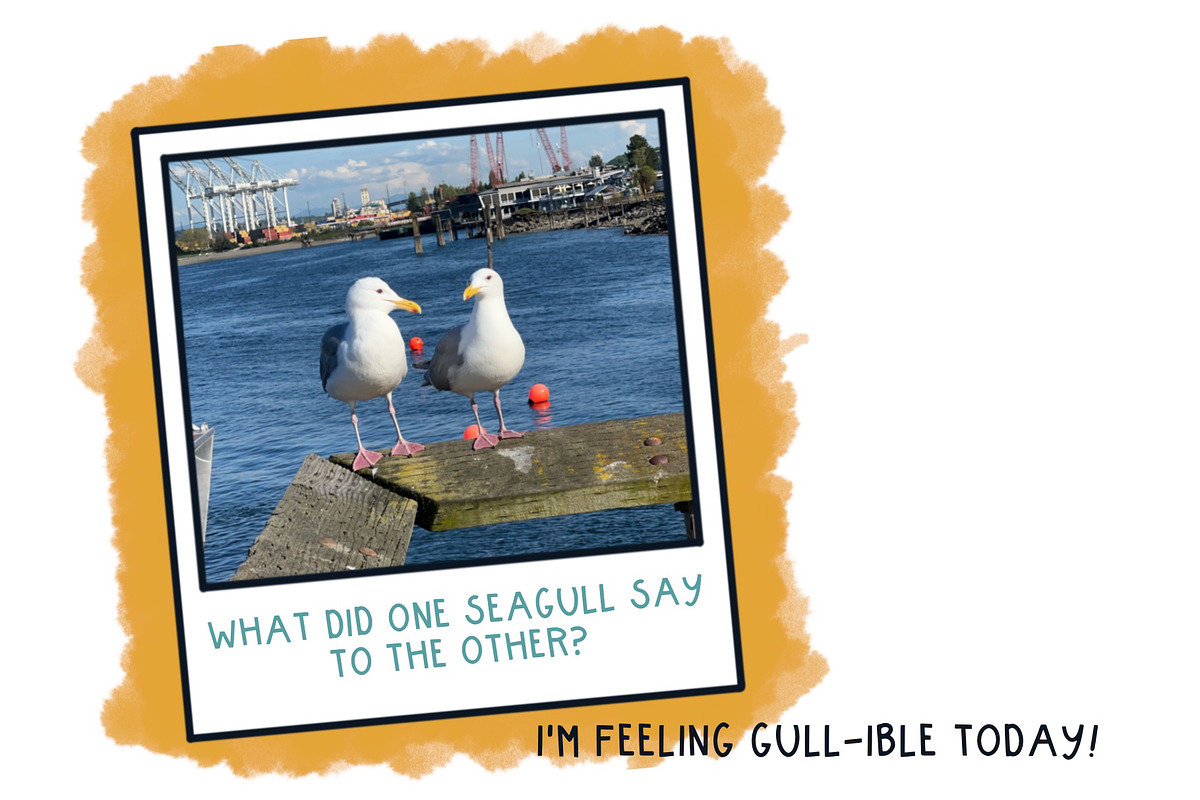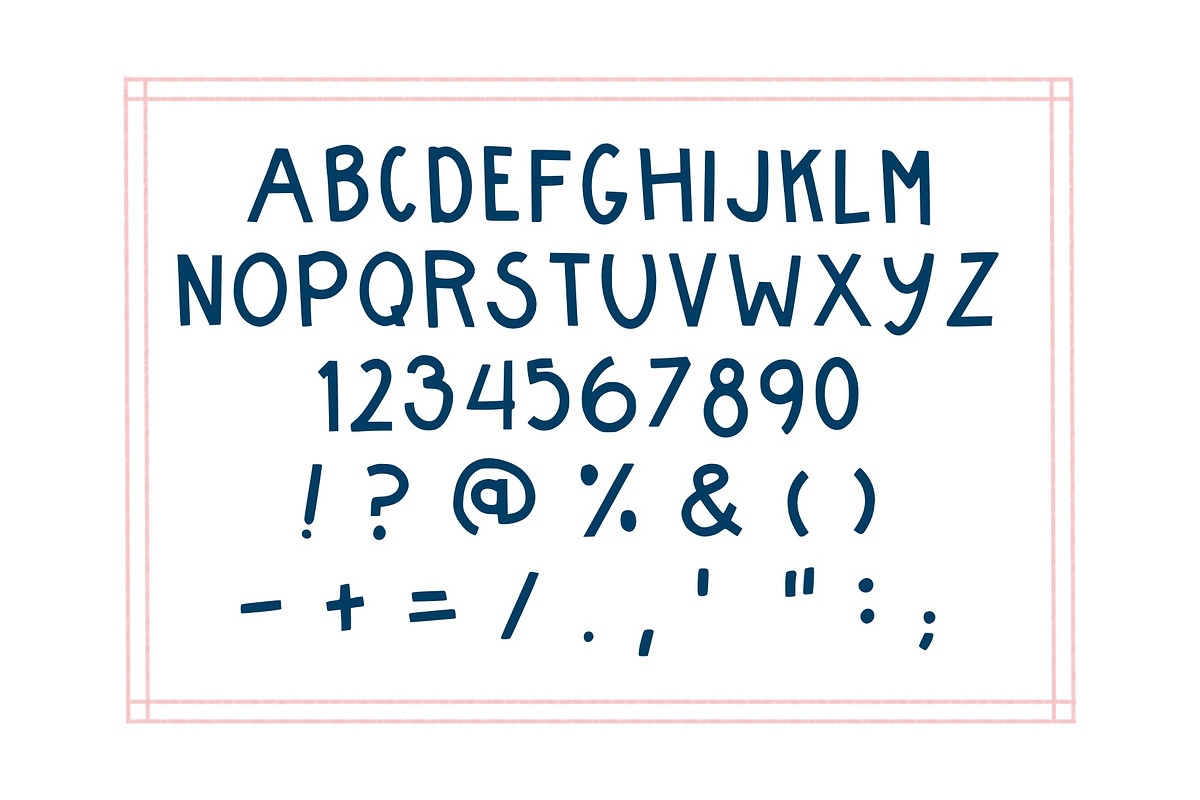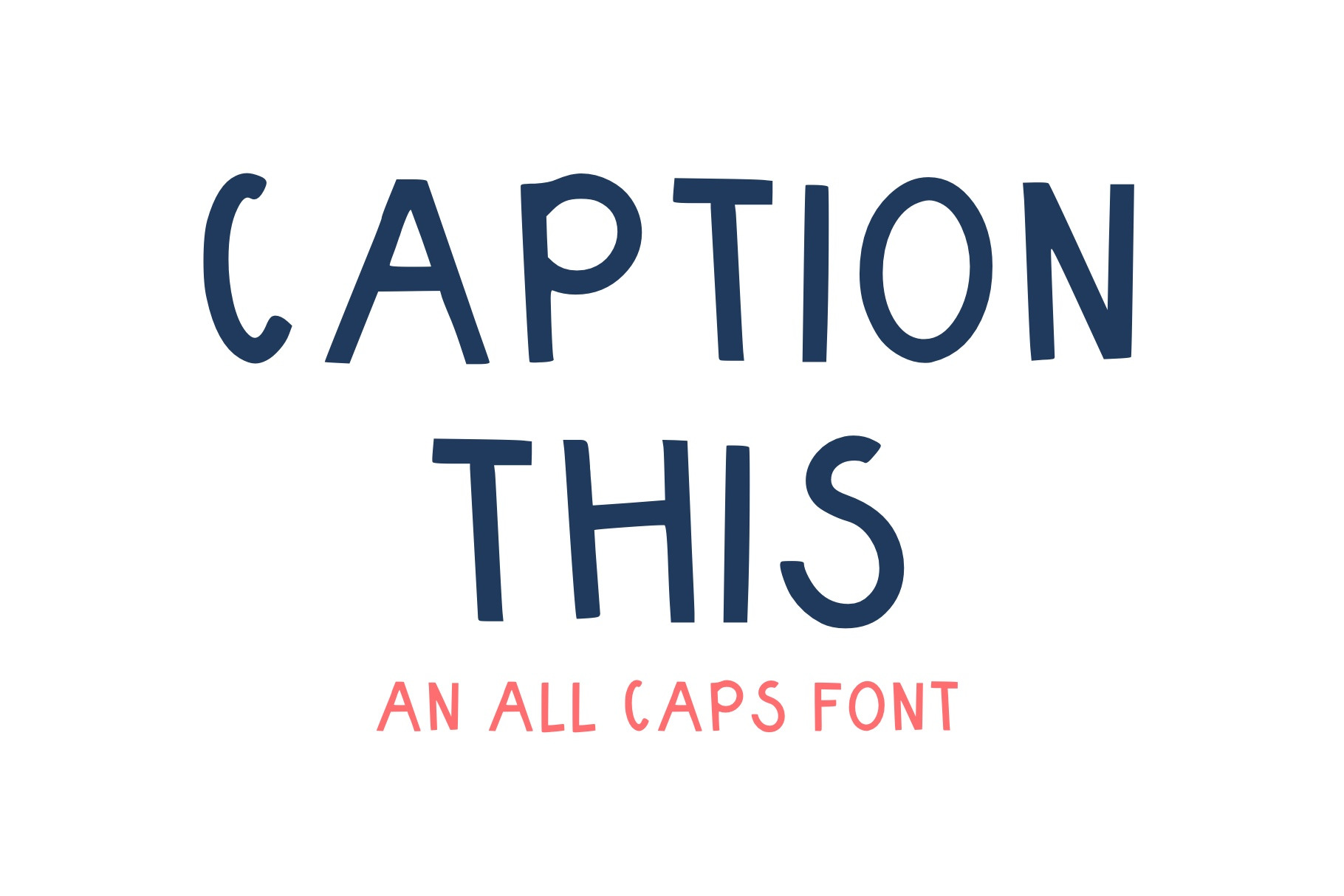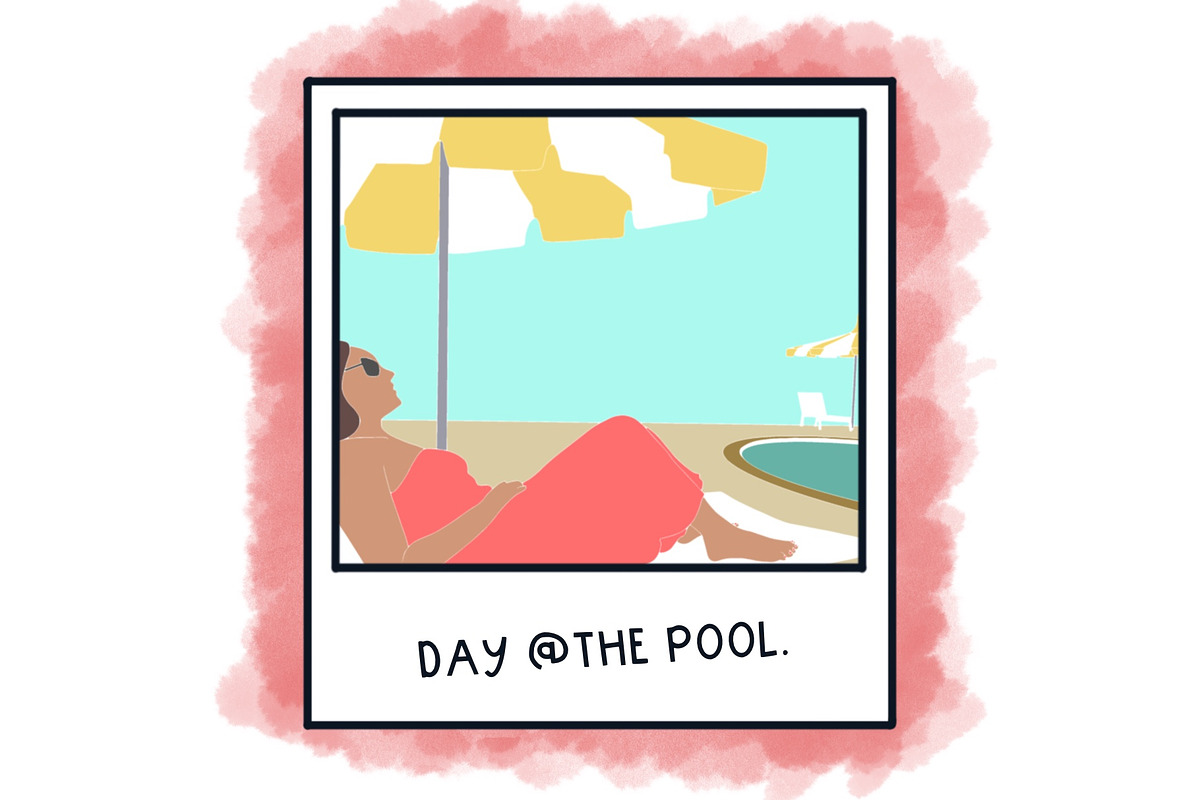
CAPTION THIS All Caps Font
A simple hand drawn all caps font. Great for when you want something a little wonky! Use it in your favorite creative application! Files included are: OpenType Font/ otf and TrueType Font/ttf Human Intelligence generated!